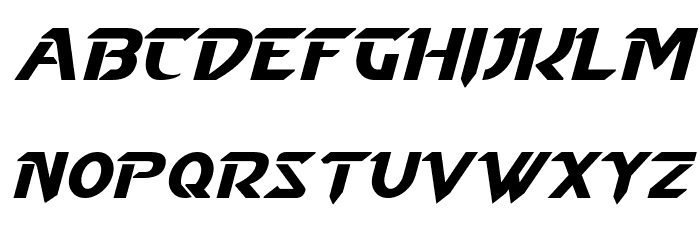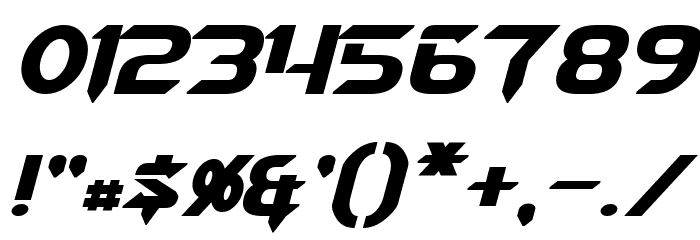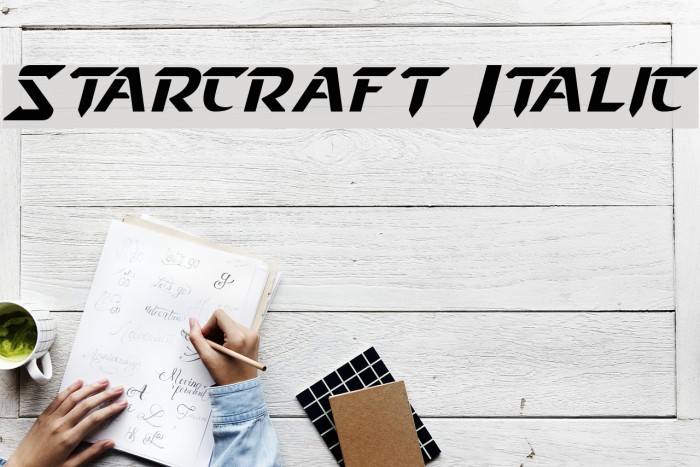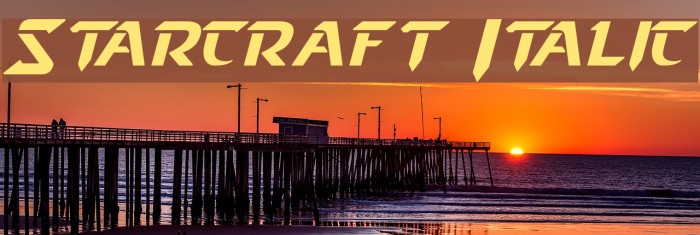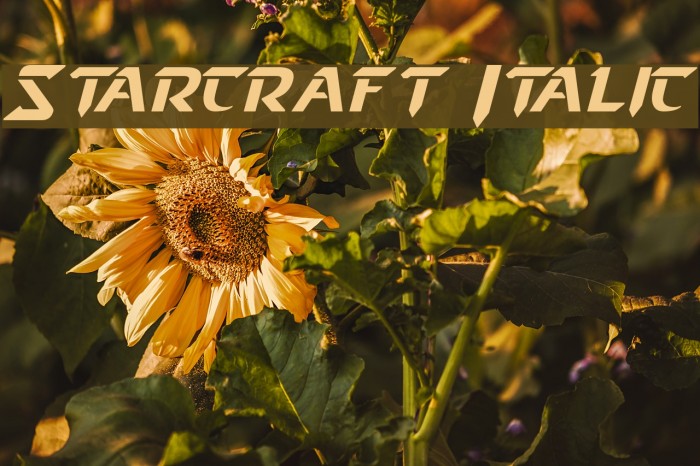
Starcraft Italic Font
This font features a bold, italicized style with sharp, angular edges and a futuristic aesthetic. The characters are designed with a strong forward slant, giving a sense of motion and dynamism. The uppercase and lowercase letters maintain a consistent geometric form, while the numbers and special characters complement the overall design. The strokes are thick and uniform, contributing to a high-impact visual presence. This font is ideal for projects that require a modern and edgy look, such as gaming titles, tech branding, or sci-fi themed designs.
- Proposed Projects: Ideal for gaming titles, tech branding, sci-fi themes, and dynamic posters.
- Overall Style: Futuristic